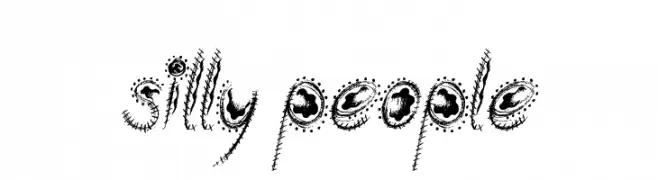
( Font by Jonathan Harris - www.tattoowoo.com )
A bold, hand-drawn font with rough, energetic strokes.
( Font by Jonathan Harris - www.tattoowoo.com )
A dynamic, Japanese calligraphy-inspired font with bold, sweeping strokes.
( Font by Jonathan Harris - www.tattoowoo.com )
An elegant, decorative script font with intricate, swirling strokes.
( Font by Jonathan Harris - www.tattoowoo.com )
A bold, geometric font with a modern and decorative style.
( Font by Jonathan Harris - www.tattoowoo.com )
A whimsical, flowing script font with elongated, irregular letterforms.
( Font by Jonathan Harris - www.tattoowoo.com )
A playful, hand-drawn font with a doodle-like, textured style.
( Font by Jonathan Harris - www.tattoowoo.com )
A decorative font made of hearts and crosses, perfect for romantic themes.
( Font by Jonathan Harris - www.tattoowoo.com )
A whimsical, hand-drawn style font with playful decorative elements.
( Font by Jonathan Harris - www.tattoowoo.com )
A grunge-inspired font with dripping, chaotic strokes for a rebellious look.
( Font by Jonathan Harris - www.tattoowoo.com )
A playful, circular-themed font with a bubbly and dynamic appearance.